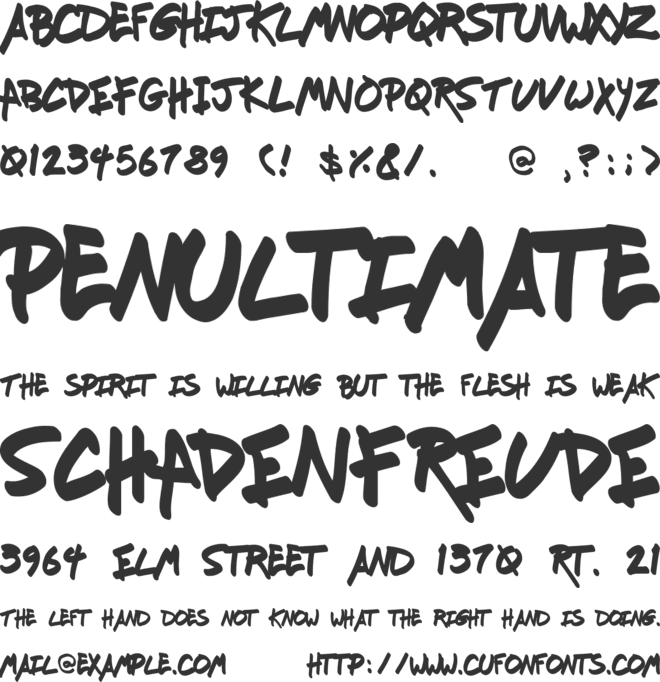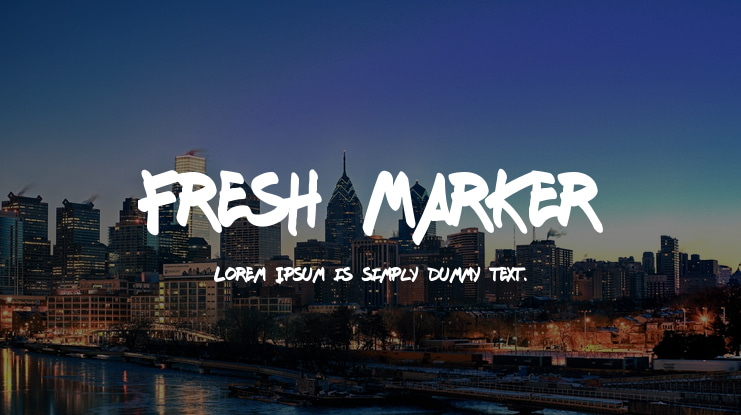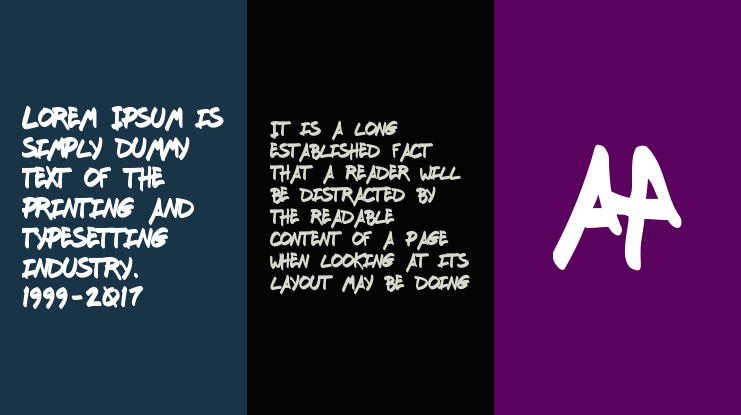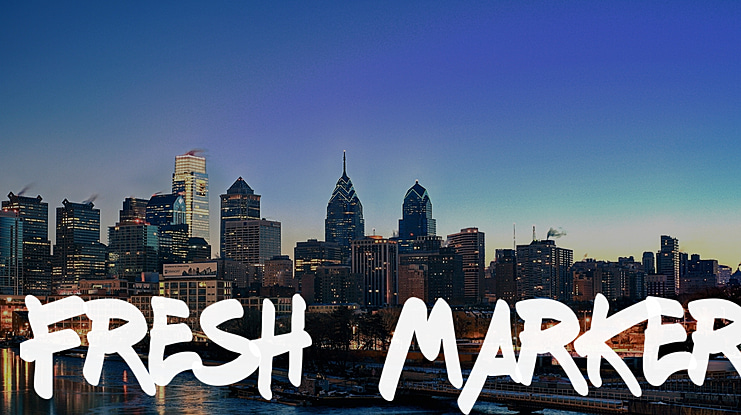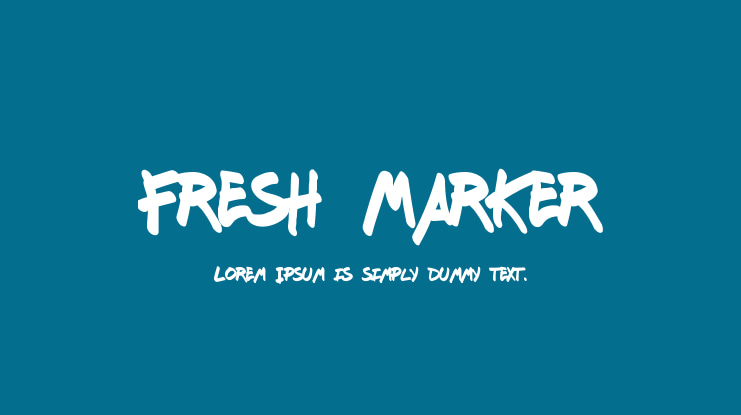
Fresh Marker Font
Mix the upper and lower cases to get a good variation between the letters and keep it looking natural! Free to use for both personal and commercial purposes!